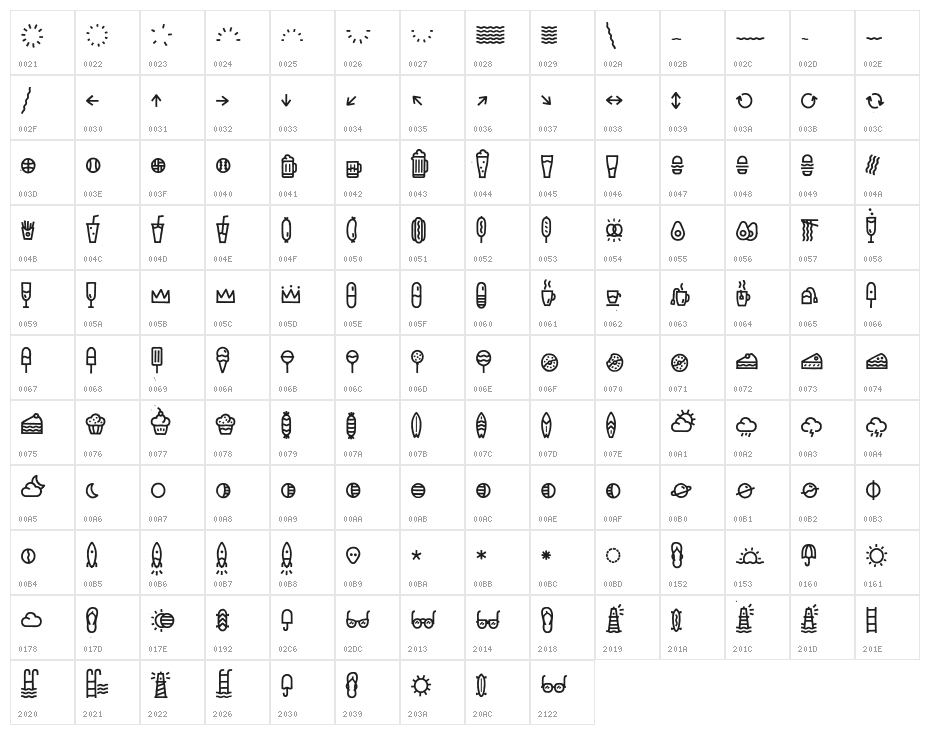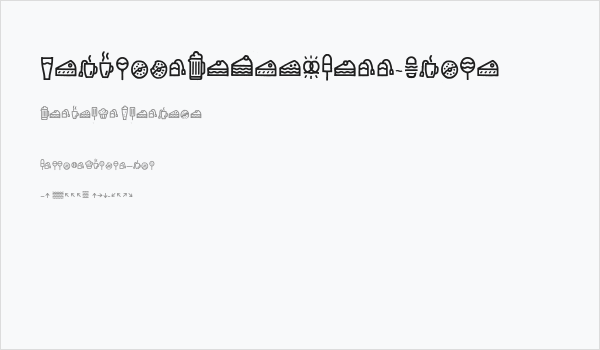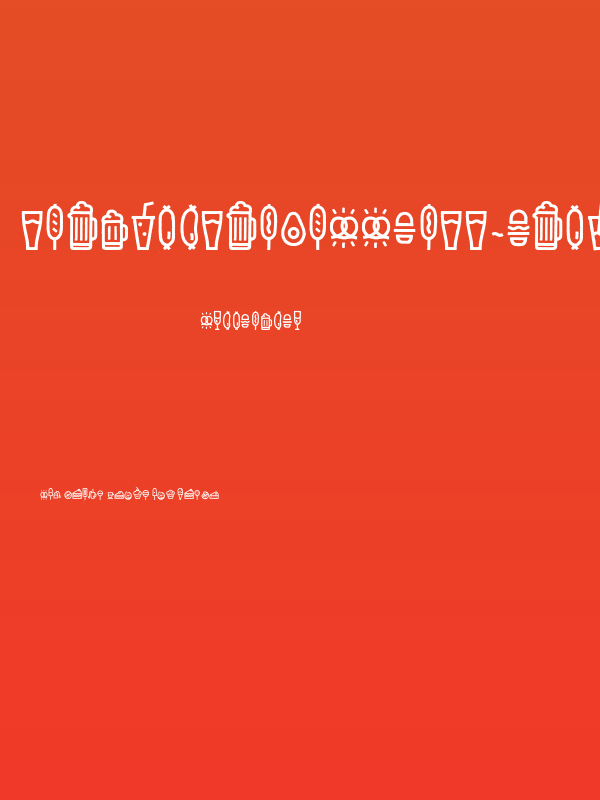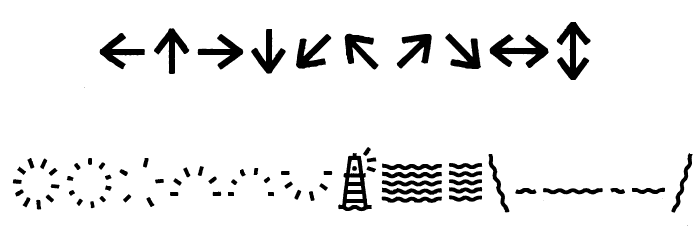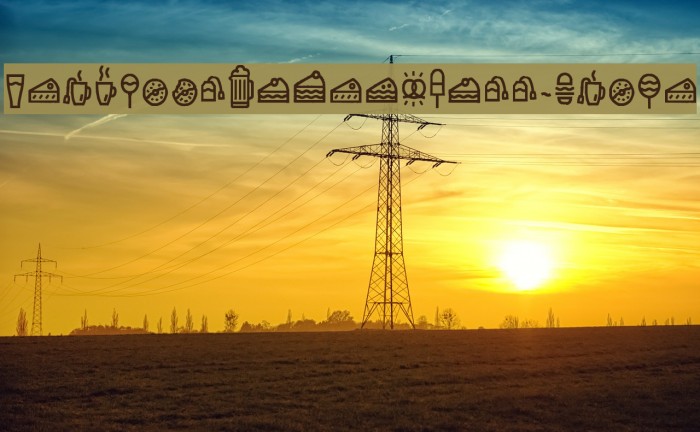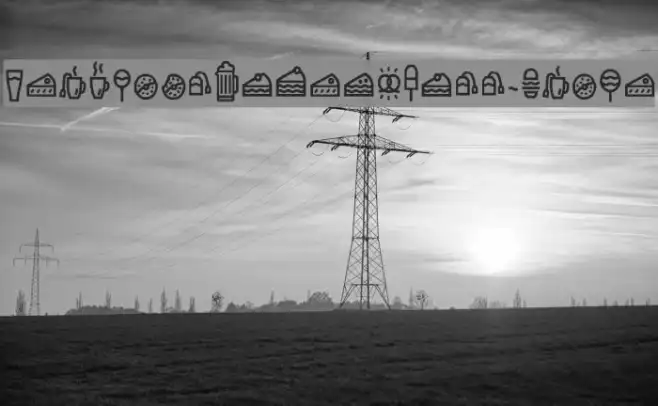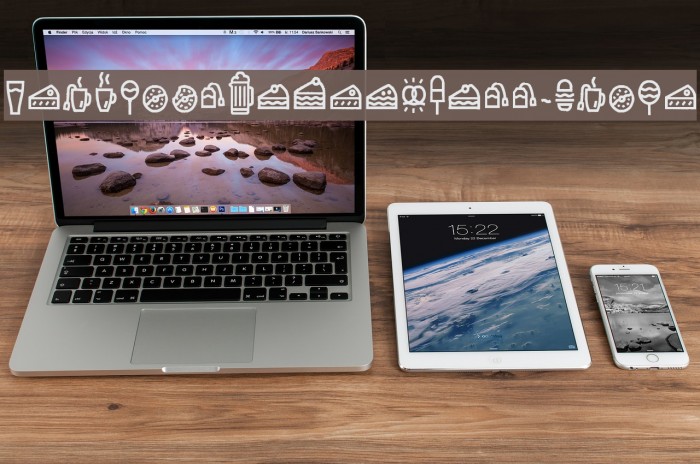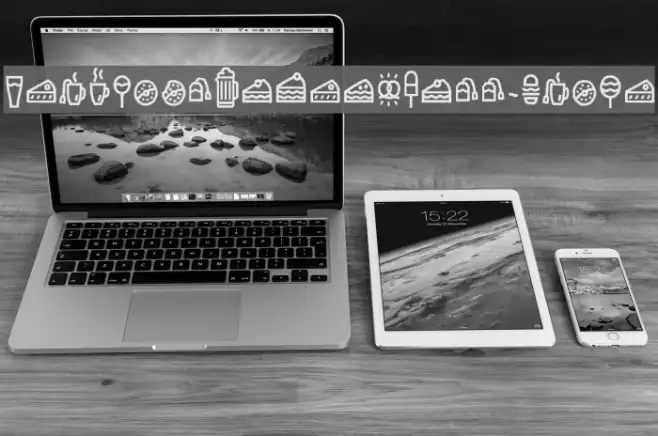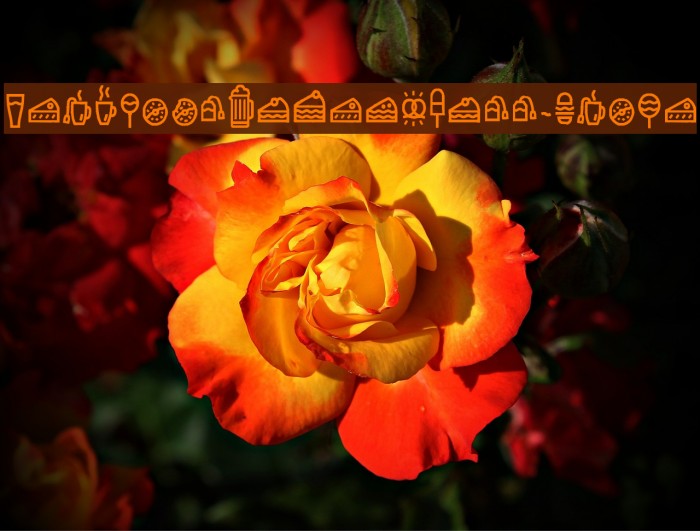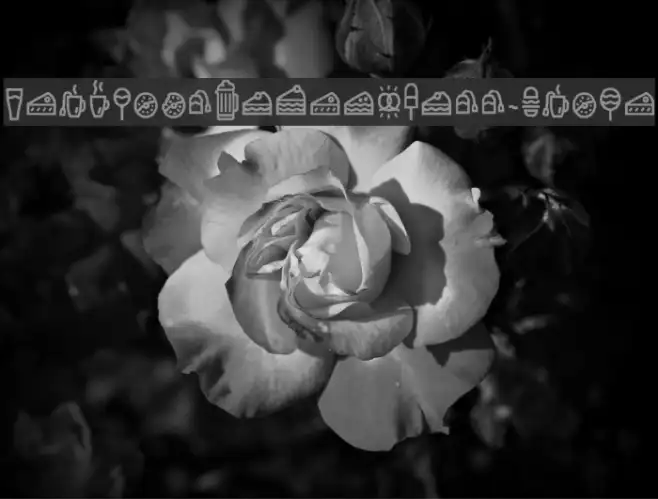
EscalopeCrustThree-Icons Font
EscalopeCrustThree-Icons Description
This set of icons features a playful and whimsical design, showcasing a variety of food and drink items such as beer mugs, burgers, hot dogs, and ice cream cones. The icons are outlined with a bold, consistent stroke, giving them a cohesive look. The style is simplistic yet detailed enough to convey each item clearly. The icons also include directional arrows and decorative elements like waves and lighthouses, adding to their versatility. The overall aesthetic is modern and fun, making them suitable for a range of applications.
| Use Case | Icons, Branding, Menus |
| Proposed Projects | Ideal for use in restaurant menus, food blogs, mobile apps, and playful branding projects. |